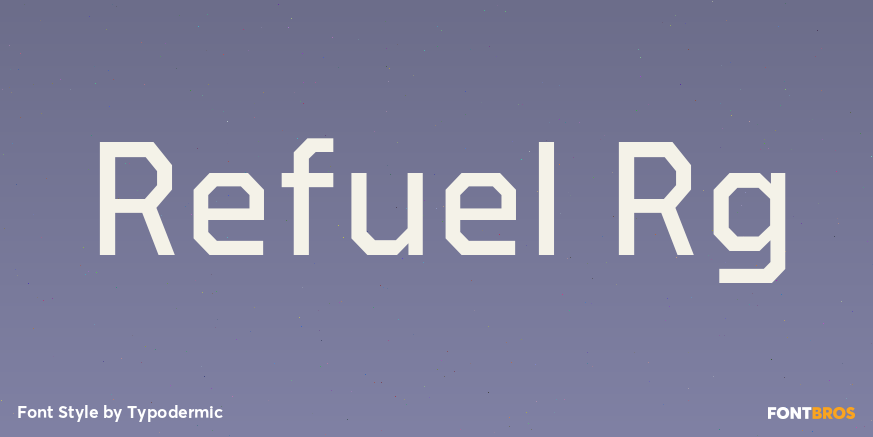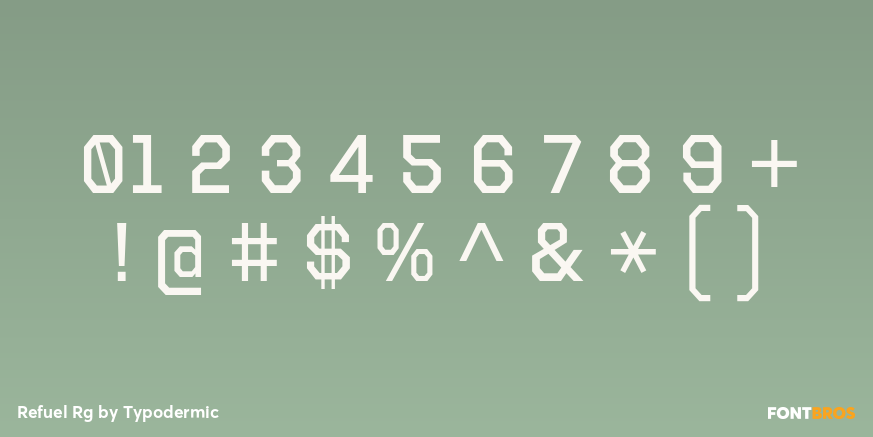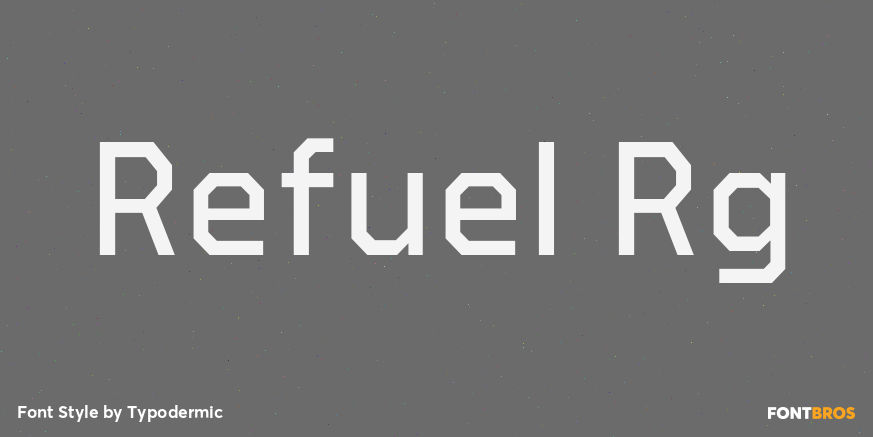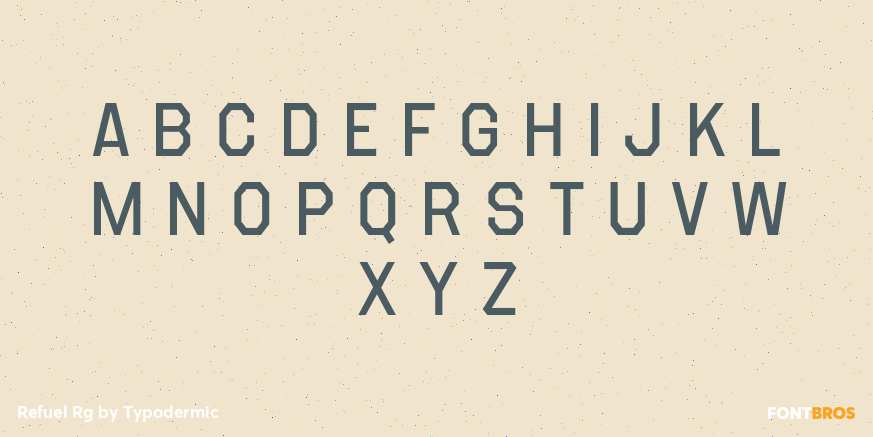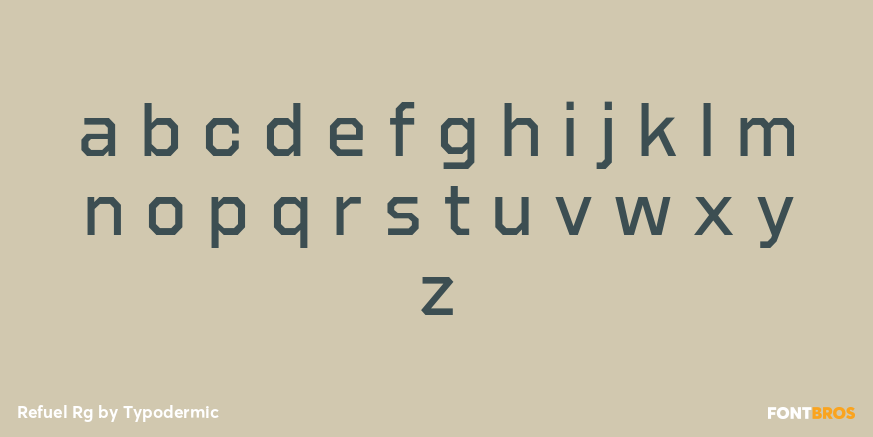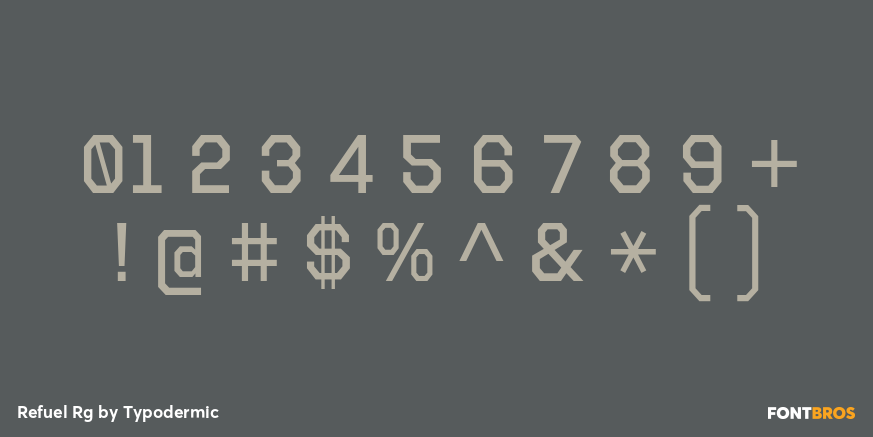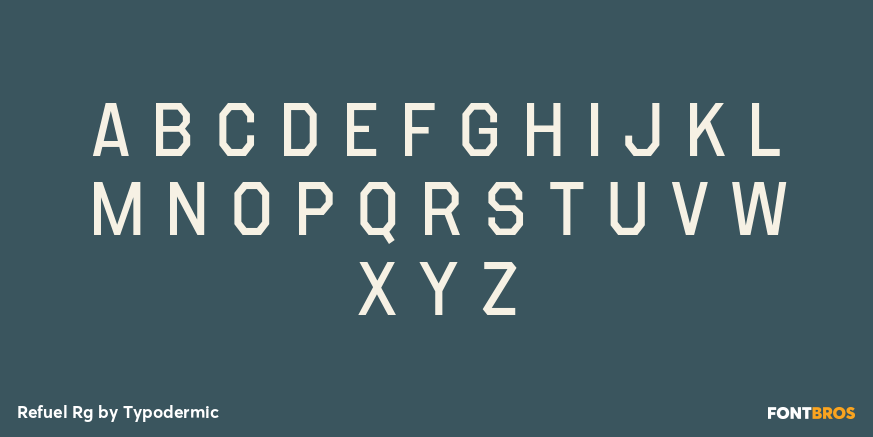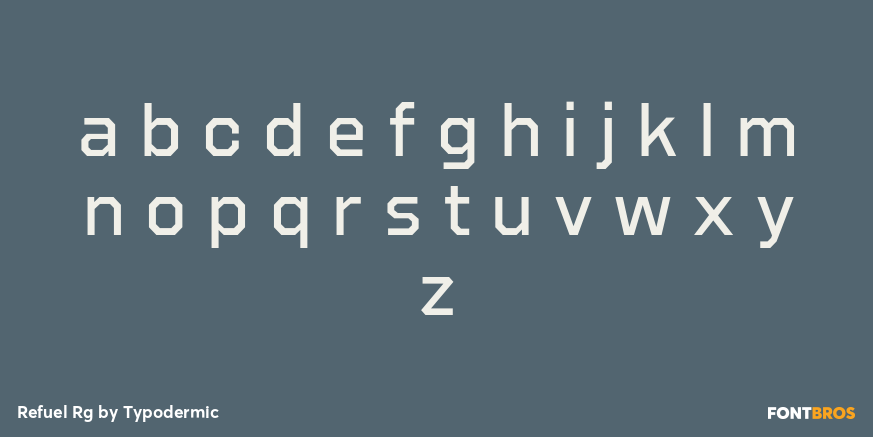
Refuel Rg
Octagonal military lettering is easy to find. The problem appears when a project grows beyond one aircraft name or oversized stencil. Contemporary defense and security programs can span vehicles, drones, sensor packages, ground stations, training systems, product families, exhibition graphics, capability presentations, and communications for several countries. A single all-caps display style may establish the mood, but it cannot carry that visual identity very far.
Refuel turns the familiar angular aircraft-marking vocabulary into a working system. Six weights across Condensed, normal, and Expanded widths, with matching italics and a genuine lowercase, give designers considerably more room to organize technical names and product hierarchies while preserving the same recognizable character. Condensed styles accommodate long equipment designations and narrow surfaces; Expanded styles can spread across aircraft graphics, exhibition walls, and campaign titles. Latin, Greek, and Cyrillic coverage extends that system into multilingual defense and security work.
Uncrewed aircraft and counter-drone systems are a particularly strong fit. Surveillance drones, interceptor systems, autonomous platforms, sensor payloads, ground-control stations, counter-UAS radars, and electronic-warfare equipment increasingly belong to coordinated product families rather than isolated machines. Refuel can carry platform names, payload families, control-station graphics, test-range displays, training-program identities, launch films, and defense-exhibition walls without changing visual language every time the application changes.
Air surveillance and integrated defense systems present a similar challenge. Airborne early-warning platforms, radar families, ISR systems, interceptor programs, sensor networks, and tactical-control platforms need identities that can stretch from a prominent system name into mission packages, capability graphics, demonstration material, and aerospace exhibitions.
Multinational exercises and training programs make the broader script coverage especially useful. Exercise identities, drone-training programs, simulation scenarios, range graphics, briefing covers, training-center feature walls, and capability demonstrations may need to move between languages without abandoning the established visual system.
Defense manufacturers can use the same range across entire equipment catalogues. Radar series, electronic-warfare systems, rugged communications hardware, vehicle mission packages, modular payloads, surveillance equipment, and flight-support systems all generate product names, equipment graphics, brochures, comparison charts, exhibition booths, and demonstration vehicles.
Critical-infrastructure security extends that language beyond defense procurement. Counter-drone protection, perimeter radar, electro-optical sensing, autonomous patrol systems, and surveillance technology increasingly protect airports, ports, energy facilities, government sites, and other sensitive locations.
Refuel is most useful when military-style lettering has to become more than a badge. It takes a familiar angular vocabulary and gives it enough widths, weights, italics, lowercase, and language coverage to function across a modern defense or security system rather than a single piece of equipment.